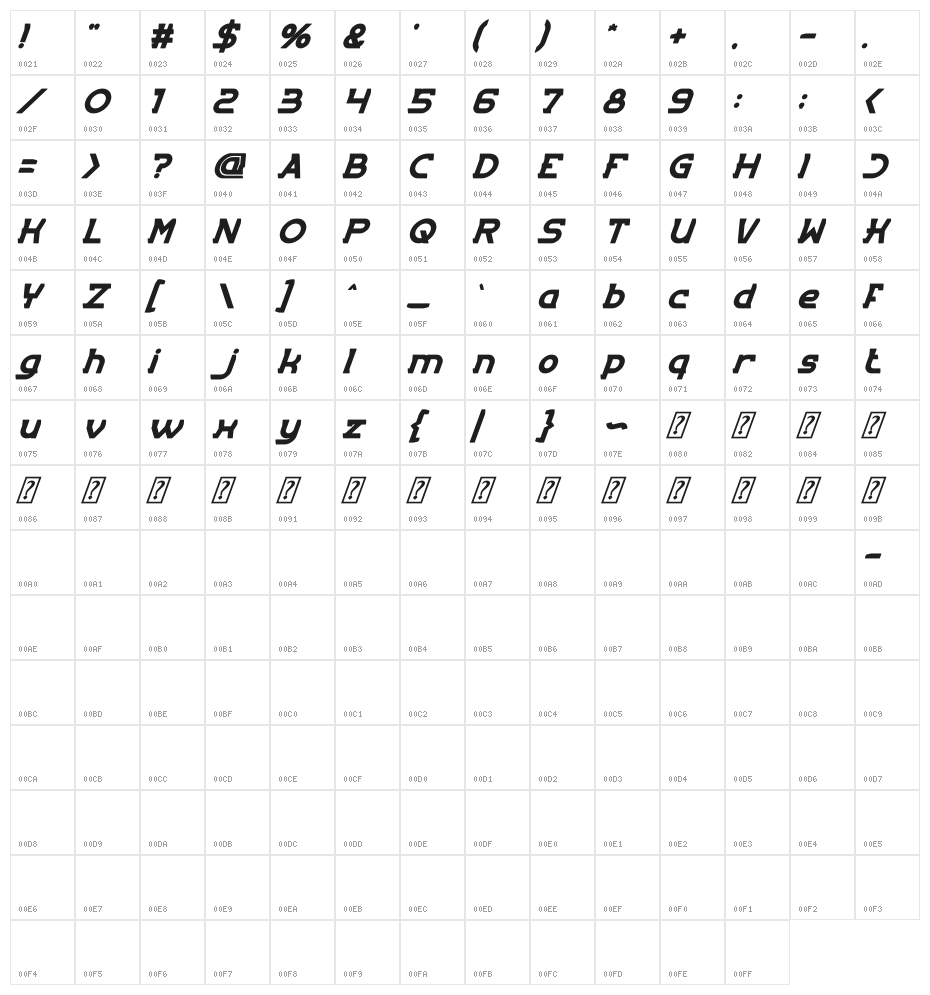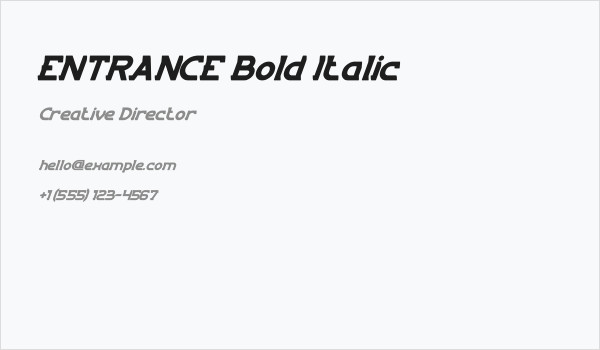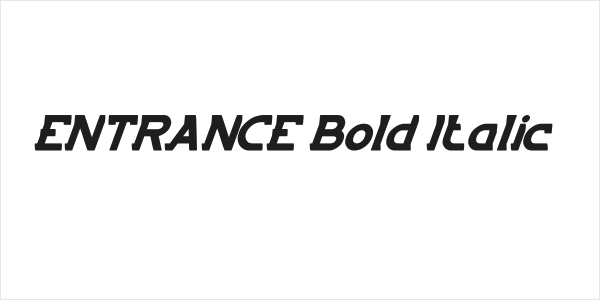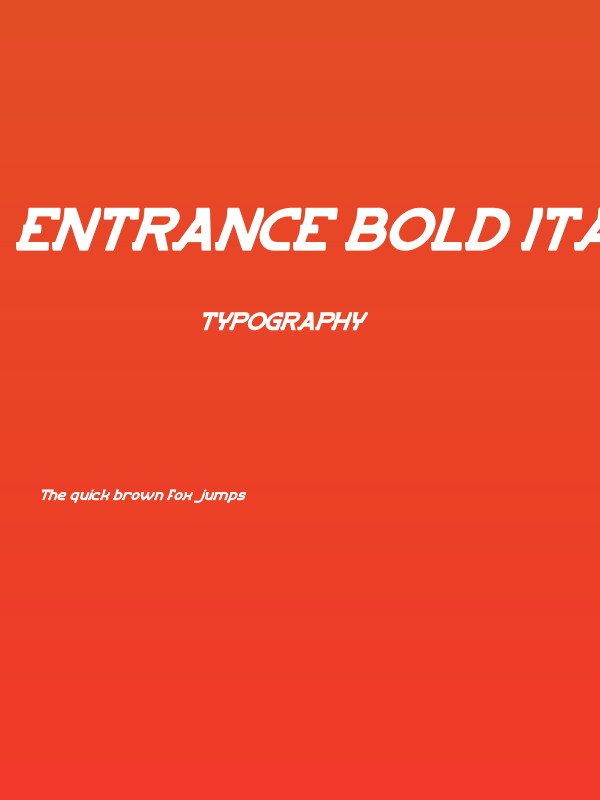
ENTRANCE Bold Italic Font
ENTRANCE Bold Italic Description
This font features a bold and italicized style with a modern, dynamic appearance. The characters are slightly slanted, giving a sense of movement and energy. The strokes are thick and consistent, providing a strong visual impact. The design includes sharp angles and clean lines, contributing to its contemporary feel. The uppercase and lowercase letters maintain a uniform width, ensuring readability. The numerals are distinct and match the overall bold aesthetic. Special characters are well-integrated, maintaining the font's cohesive look.